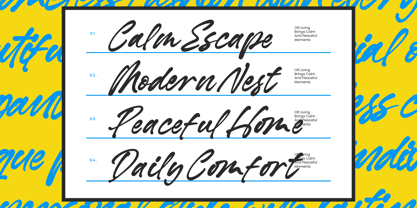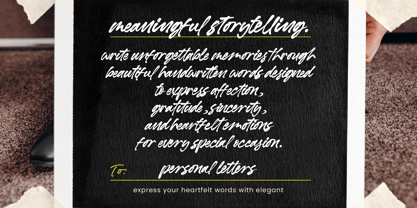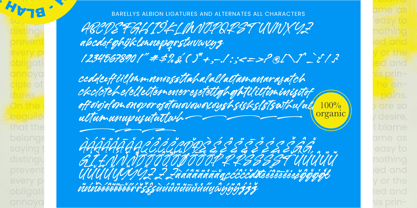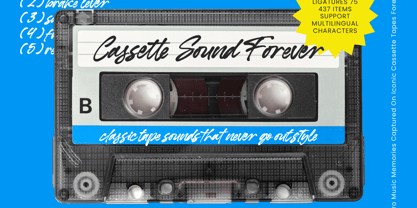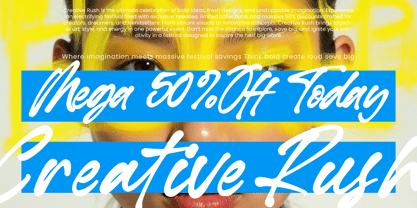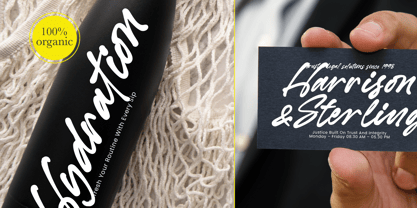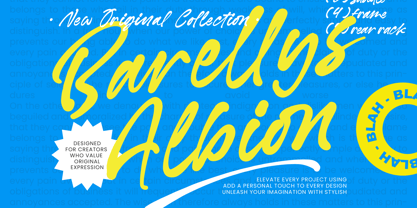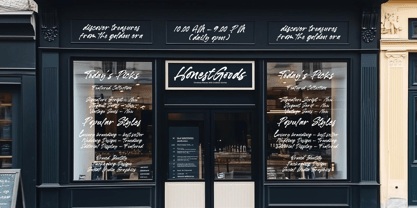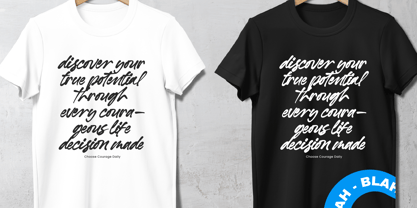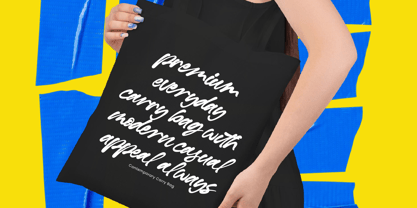
Barellys Albion
von Letterena Studios
Barellys Albion - Modern Handwritten Typography
Discover the perfect harmony of organic flow and modern sophistication with Barellys Albion - Modern Handwritten Typography. This premium script typeface captures the essence of authentic brushwork, offering a dynamic aesthetic that breathes life into any creative composition. Whether you are aiming for a bold statement or a refined signature style, this font provides the visual impact necessary to stand out in a crowded marketplace through its energetic movement and handcrafted charm.